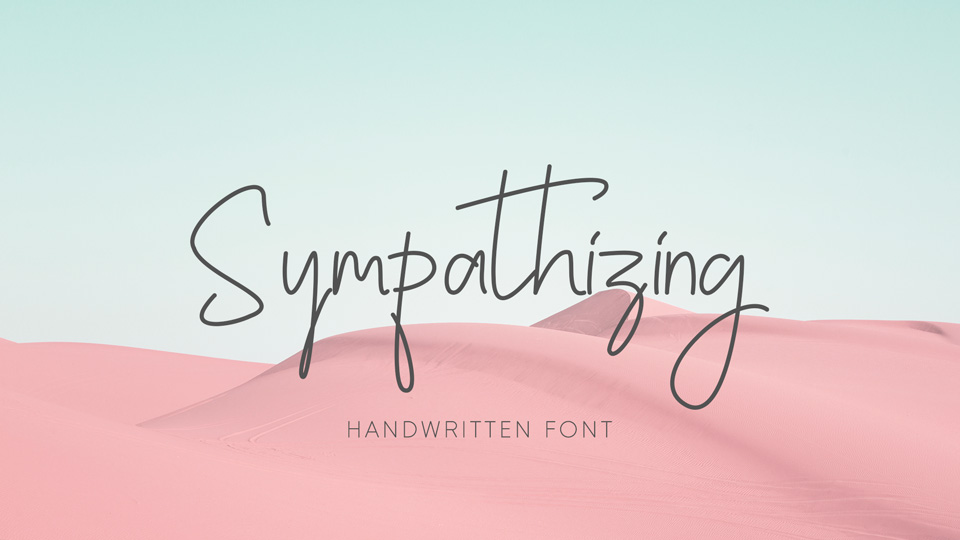
Sympathizing Font
Sympathizing is a simple handwritten font with a beautiful touch on every line. Sympathizing is perfect for various purposes such as branding, interior design, book title, printed on a t shirt, packaging, advertising, and many other stuff.